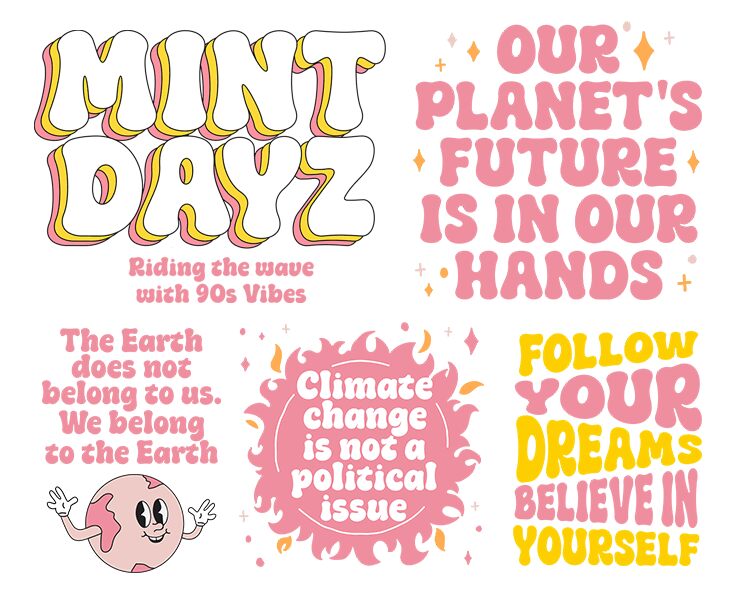
Mint Dayz font by Four Lines is a bold groovy display font with chunky, whimsical, rounded shapes. Displaying 1960s or 1970s influence, it has a casual and relaxed vibe while being visually distinctive and attention-grabbing. Its letters tend to be wide rather than condensed, with plenty of space between elements.
Make your text fun in advertisements and posters. Add grooviness to packaging and clothing design such as T-shirts; use in unique business cards; or brighten up spaces like books, planners, invitations, greeting cards, magazines covers or any other printouts.